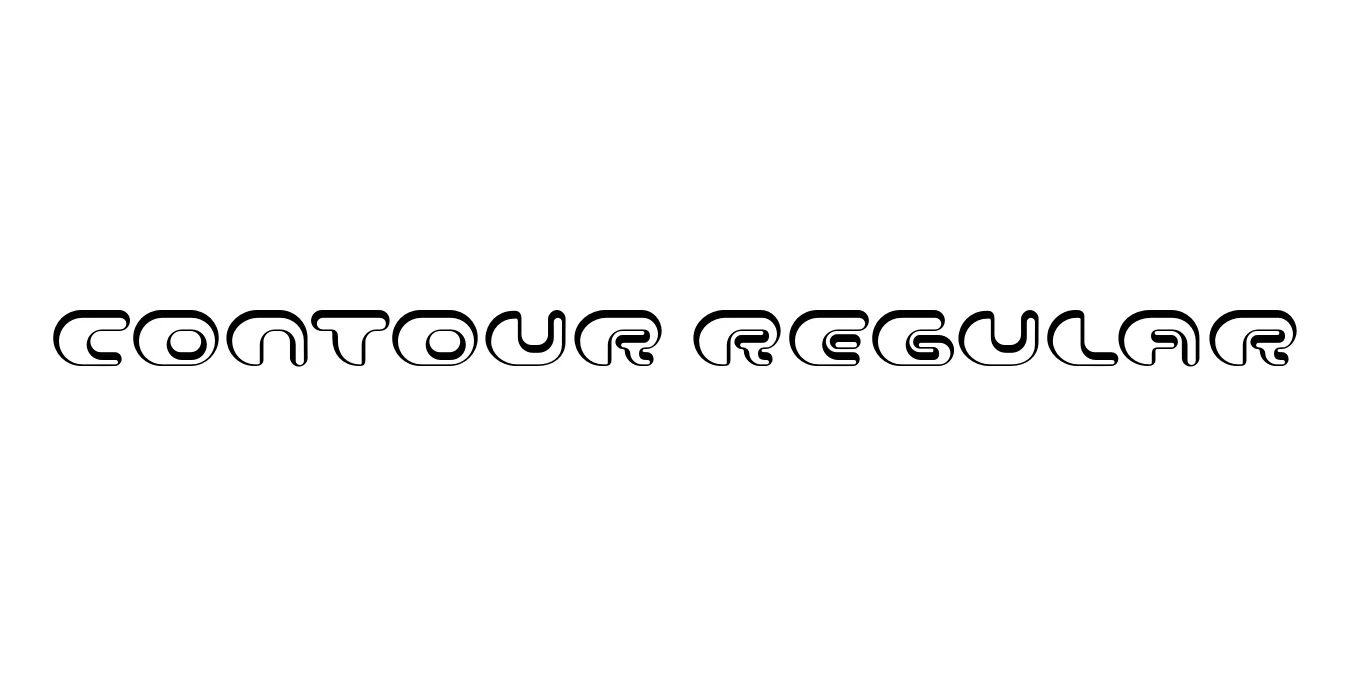
Contour Regular
Designed by Thomas E. Harvey
| Category | Display / Sans Serif |
| Designer | Thomas E. Harvey |
| Similar Fonts | Bauhaus, Futura (Outline), Eurostile |
Contour Regular is a distinct sans-serif typeface characterized by its unique hollowed-out or 'contoured' appearance. Originally designed to provide a sense of depth and architectural structure, it excels in high-impact visual communication. The font family often features a balance between bold geometric shapes and delicate internal negative space, making it a favorite for retro-futuristic and industrial designs where clarity meets creative styling.
Over the years, this typeface has been utilized in various branding projects that require a sophisticated yet edgy look. Its clean lines and legible structure ensure that even with the contour effect, the text remains readable at larger scales. It is frequently seen in technical manuals, poster headlines, and digital interfaces where a modern, structured aesthetic is desired to convey technical precision and style.
Contour Regular Best Uses
Perfect for bold, eye-catching titles on posters and magazine covers.
Ideal for creating structured and modern brand identities with a sense of depth.
Great for labels and diagrams requiring a clean, industrial aesthetic.
Works well for UI elements that need a distinct, hollowed-out aesthetic to stand out.